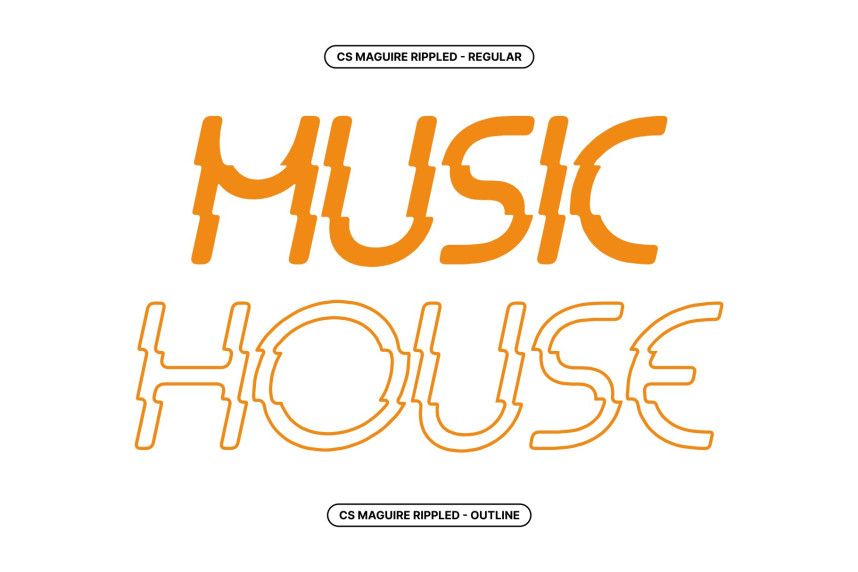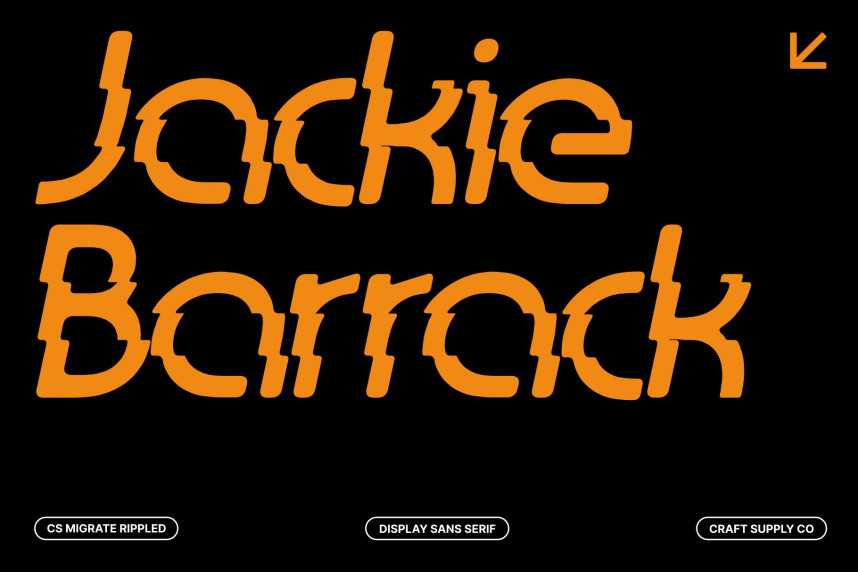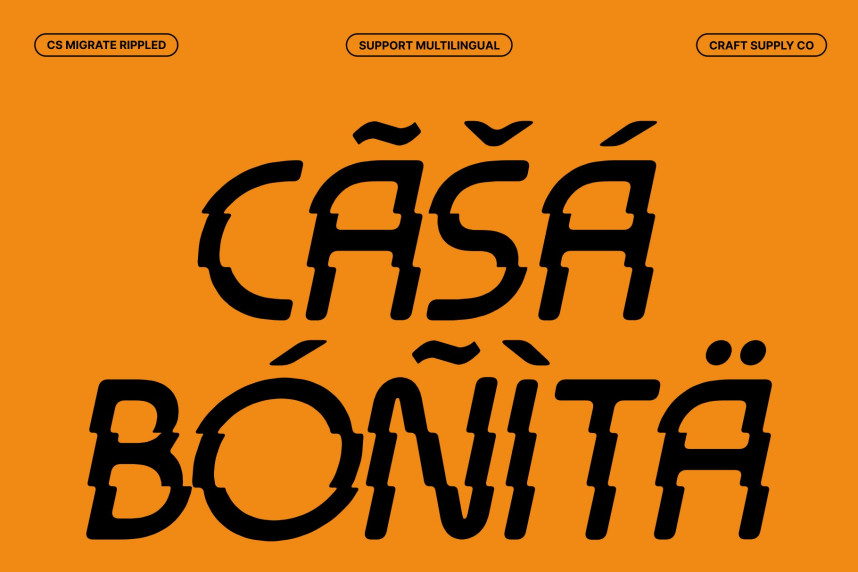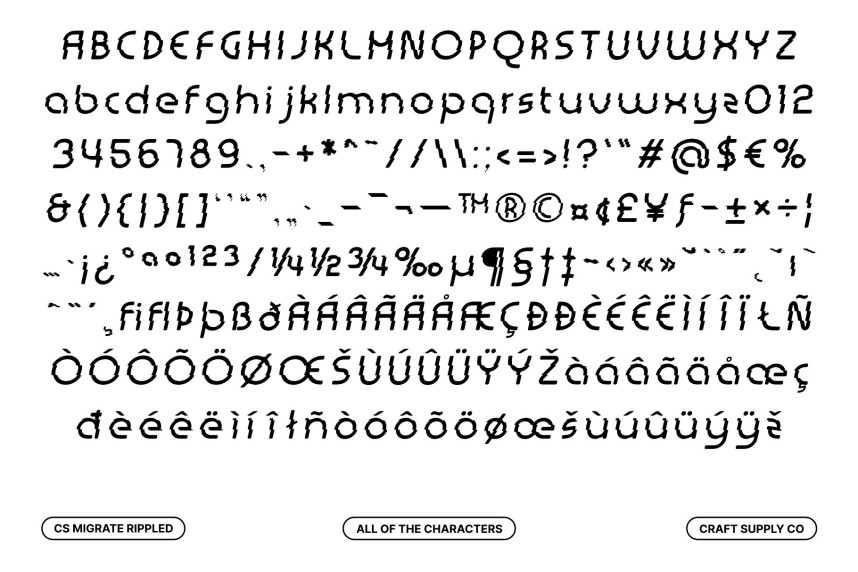
CS Migrate Rippled Font
CS Migrate Rippled Font – Modern Display Font: Where Bauhaus Geometry Meets Fluid Wave Motion
Bauhaus-Inspired Clarity and Geometric Beauty
This is a modern display font inspired by the iconic Bauhaus design movement, embracing the principles of clarity, functionality, and geometric elegance. Its clean construction, balanced proportions, and structured forms create a sophisticated visual identity that feels timeless yet contemporary.